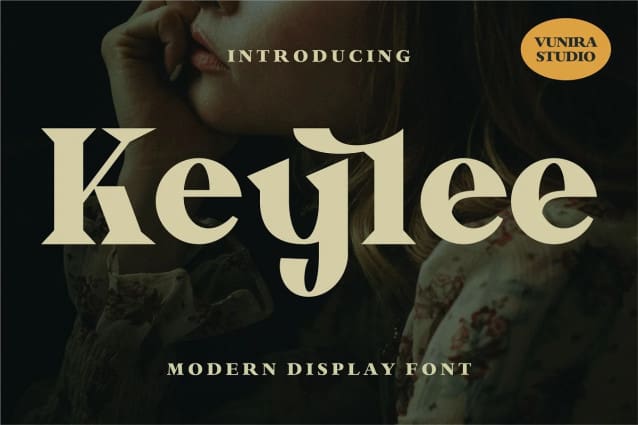
Keylee Font
Keylee Font – Modern Display with a calligraphy style, So beautiful on invitation like greeting cards, branding materials, business cards, quotes, posters, and more!